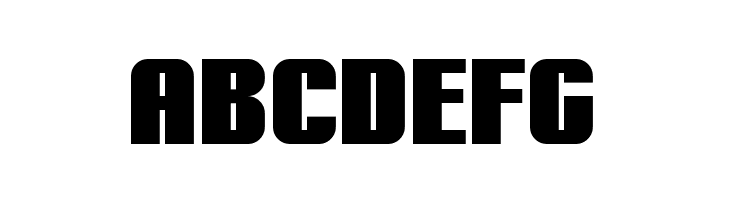
EdenMills-Italic Font
- Font: EdenMills-Italic
( Fonts by Dennis Ludlow - Sharkshock Productions )
A bold, playful font with thick strokes and whimsical curves.